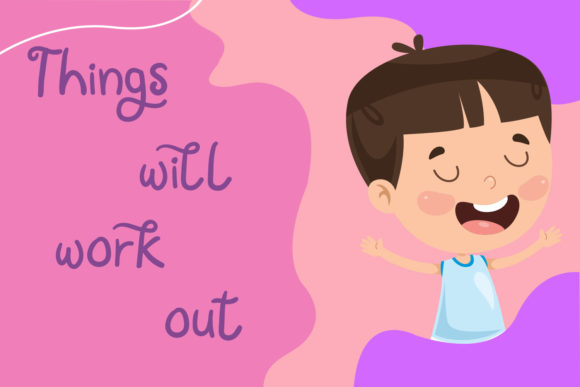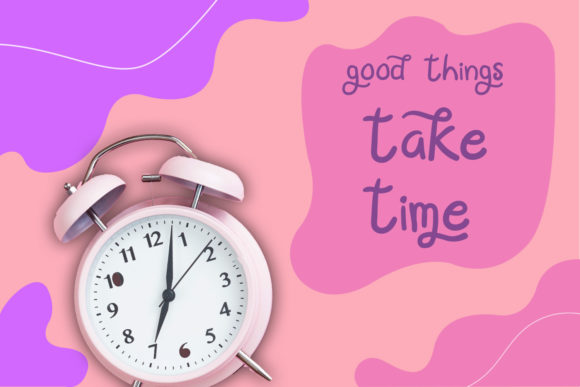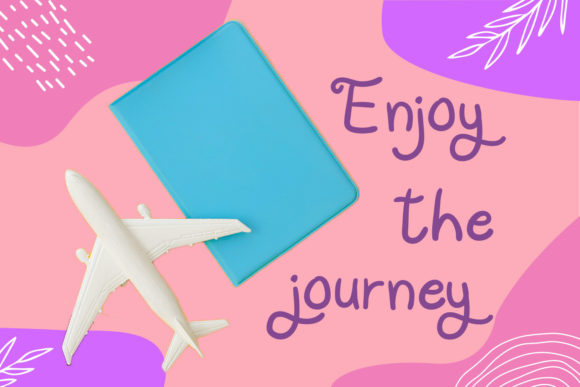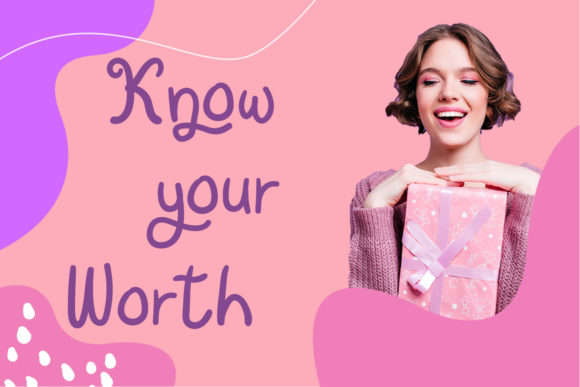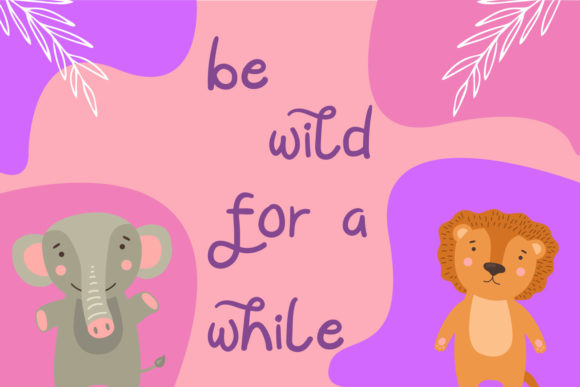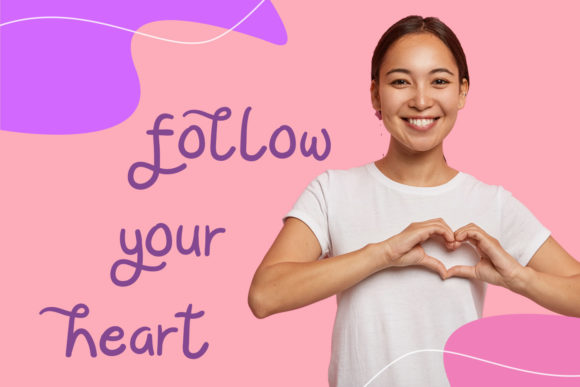
Candylite Font: The Whimsical Script Font to Elevate Your Creations
In the world of typography, fonts play a crucial role in conveying the tone and personality of a design. For designers and crafters, finding the perfect font can be a daunting task. However, if you’re looking for a whimsical script font that can add a touch of magic to your creations, look no further than Candylite Font. In this article, we’ll explore the features and benefits of Candylite Font, and why it’s an incredibly valuable asset to your font library.
What is Candylite Font?
Candylite Font is a beautifully designed script font with a relaxed theme. Its lovely style is perfect for a wide range of design projects, from creative crafts to digital designs. The font features a unique blend of elegance and playfulness, making it an excellent choice for designers who want to add a touch of whimsy to their work.
Key Features of Candylite Font
• Whimsical Design: Candylite Font boasts a unique and imaginative design that’s perfect for creating eye-catching designs.
• Relaxed Theme: The font’s relaxed theme makes it ideal for designs that require a friendly and approachable tone.
• Elegant Style: Candylite Font features an elegant style that’s perfect for designs that require a touch of sophistication.
• Versatile: This font is incredibly versatile and can be used for a wide range of design projects, from digital designs to creative crafts.
Why Choose Candylite Font?
Candylite Font is an excellent choice for designers and crafters who want to elevate their creations. Here are some reasons why:
• Unique Design: Candylite Font features a unique design that’s sure to make your designs stand out from the crowd.
• Ease of Use: The font is incredibly easy to use, making it perfect for designers of all skill levels.
• Customizable: Candylite Font is highly customizable, allowing you to adjust the font to suit your design needs.
• High-Quality: The font is of high quality, ensuring that your designs look professional and polished.
Use Cases for Candylite Font
Candylite Font is incredibly versatile and can be used for a wide range of design projects. Here are some use cases:
• Digital Designs: Use Candylite Font for digital designs, such as social media graphics, blog posts, and website headers.
• Creative Crafts: The font is perfect for creative crafts, such as scrapbooking, card making, and DIY projects.
• Branding: Candylite Font can be used for branding projects, such as logos, business cards, and letterheads.
• Advertising: The font is ideal for advertising projects, such as flyers, brochures, and posters.
Tips for Using Candylite Font
Here are some tips for using Candylite Font:
• Pair with Other Fonts: Pair Candylite Font with other fonts to create a unique and visually appealing design.
• Adjust Font Size: Adjust the font size to suit your design needs.
• Experiment with Colors: Experiment with different colors to find the perfect combination for your design.
• Keep it Simple: Keep your design simple and clean to ensure that the font is the focal point.
In conclusion, Candylite Font is a whimsical script font that’s perfect for designers and crafters who want to add a touch of magic to their creations. With its unique design, relaxed theme, and elegant style, this font is incredibly versatile and can be used for a wide range of design projects. Whether you’re working on digital designs, creative crafts, or branding projects, Candylite Font is an excellent choice. So why not give it a try and see how it can elevate your designs?